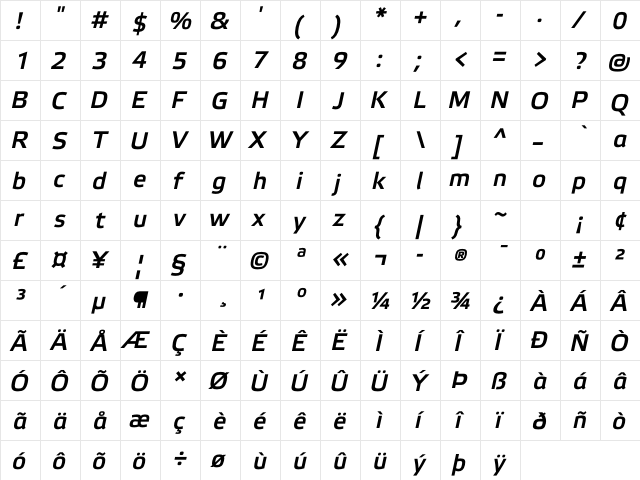
Elektra Light Pro Bold Italic Font Preview
Design Context for Elektra Light Pro Typeface
Elektra Light Pro offers clean, dependable letterforms without strong stylistic allegiance, making it a practical choice for designers who need flexibility. The slanted form adds forward momentum and visual energy. The heavy weight commands attention and anchors typographic hierarchies.
Pro Tip: Try Elektra Light Pro for annotation and caption copy alongside an upright companion — the contrast in angle creates a dynamic but ordered typographic system.